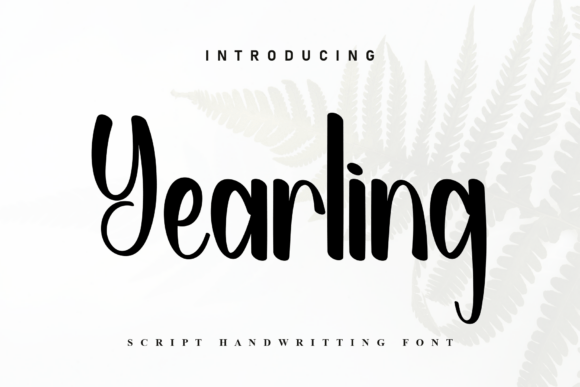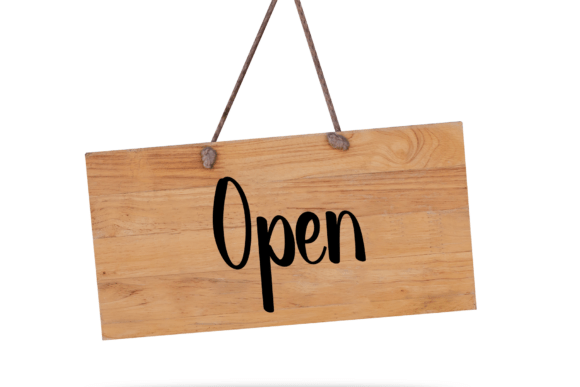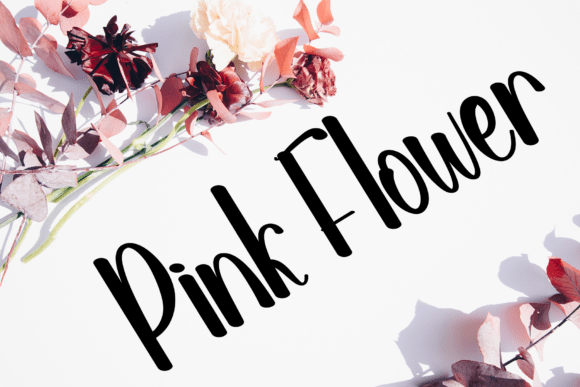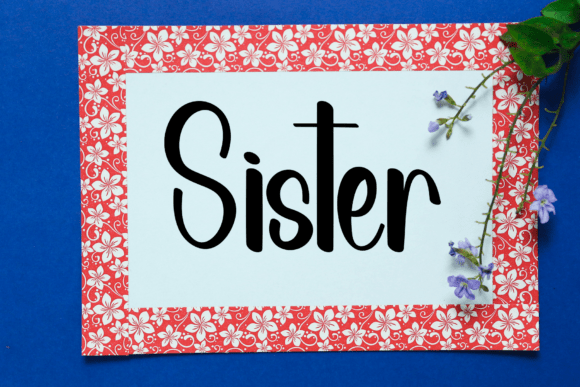
Yearling Script Fonts
Elevate your visual storytelling with Yearling, a gestural script that embodies the fluid motion of felt-tip artistry. This typeface masters the art of refined nonchalance, blending a spirited, athletic energy with the understated grace of modern luxury. Designed for projects that demand a human touch without sacrificing sophistication, Yearling flows with a rhythmic confidence that is perfect for bespoke brand identities, editorial lookbooks, and high-end stationery. Whether you are crafting a contemporary fashion campaign or a curated social narrative, this marker-inspired font delivers a polished yet effortless aesthetic that feels both premium and approachable.